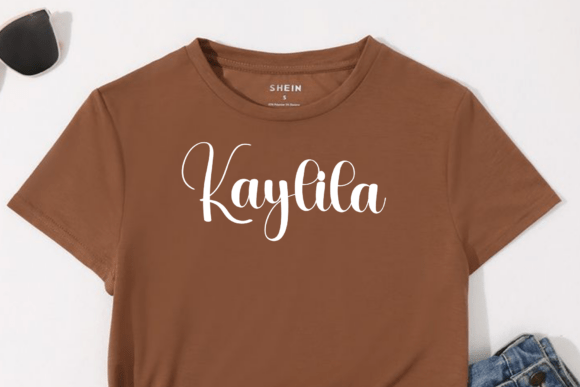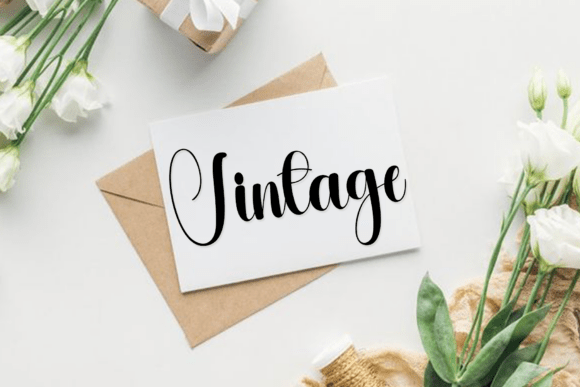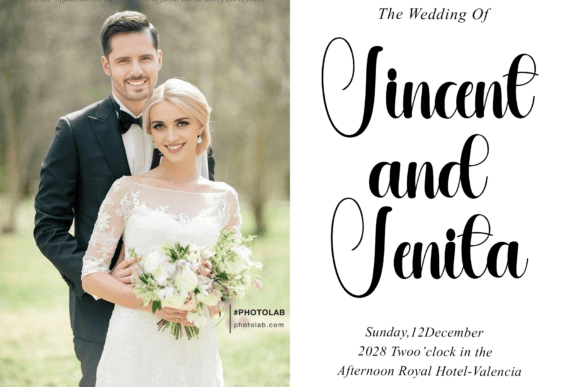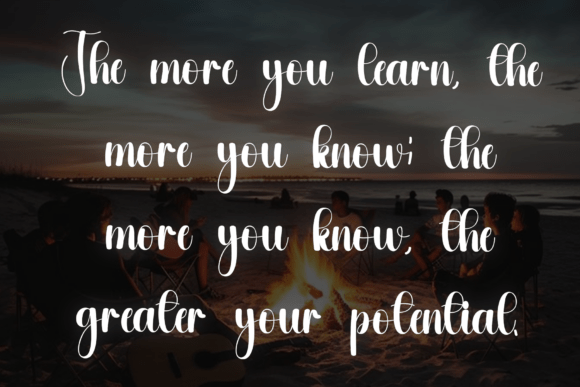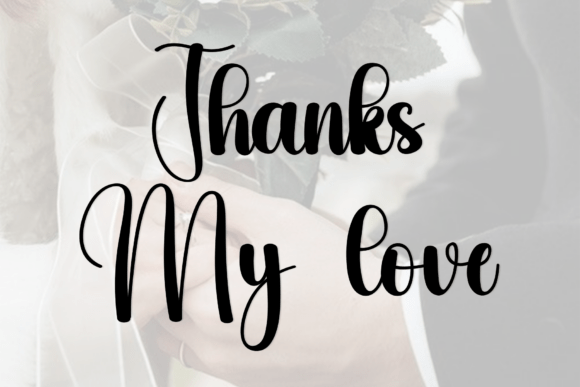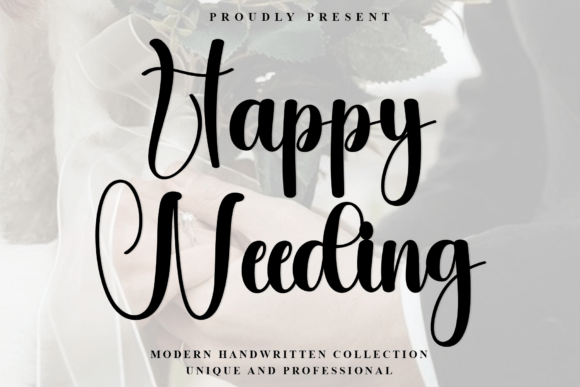
Introducing Happy Weeding Font: Elevate Your Design with a Touch of Autumnal Elegance
Are you a designer or crafter looking for a unique and professional font to add a touch of sophistication to your autumn-themed projects? Look no further than Happy Weeding Font, a stunning script font that embodies the essence of the season. With its high-contrast strokes, elegant letterforms, and rhythmic flow, this font is perfect for creating eye-catching marketing materials, packaging, invitations, and editorial headers that exude a sense of luxury and refinement.
A Modern Handwritten Collection with a Unique Visual Voice
Happy Weeding Font is part of a modern handwritten collection that showcases a distinctive autumnal visual voice. Its thick, grounded downstrokes and delicate hairline connectors create a beautiful contrast that adds depth and character to any design. The font’s vertically elongated letterforms and looping ascenders are reminiscent of high-end inkwork, giving it a sophisticated and elegant feel that’s perfect for a variety of applications.
Key Features of Happy Weeding Font
- High-contrast strokes: Thick downstrokes and delicate hairline connectors create a stunning visual effect that adds depth and dimension to your designs.
- Vertically elongated letterforms: Elegant and refined, these letterforms are perfect for creating sophisticated editorial headers, boutique event invitations, and artisanal food packaging.
- Graceful, looping ascenders: Mimicking high-end inkwork, these ascenders add a touch of luxury and refinement to your designs.
- Rhythmic flow: The font’s natural flow and rhythm make it perfect for creating eye-catching marketing materials and editorial headers.
Perfect for Autumn-Themed Projects
Happy Weeding Font is specifically designed for autumn-themed projects, making it the perfect choice for seasonal marketing materials, packaging, and invitations. Its unique and professional visual voice captures the essence of the season, evoking feelings of warmth, coziness, and sophistication.
Use Cases for Happy Weeding Font
- Seasonal autumn marketing: Create eye-catching promotional materials that capture the essence of the season and drive sales.
- Artisanal food packaging: Add a touch of luxury and refinement to your packaging with Happy Weeding Font, perfect for boutique food brands and small-batch producers.
- Boutique event invitations: Create elegant and sophisticated invitations for weddings, harvest festivals, and other autumn-themed events.
- Sophisticated editorial headers: Elevate your editorial content with Happy Weeding Font, perfect for fashion, lifestyle, and food publications.
Why Choose Happy Weeding Font?
With Happy Weeding Font, you can add a touch of autumnal elegance to your designs and elevate your brand to the next level. Its unique and professional visual voice, high-contrast strokes, and elegant letterforms make it the perfect choice for designers and crafters looking for a sophisticated font that captures the essence of the season.